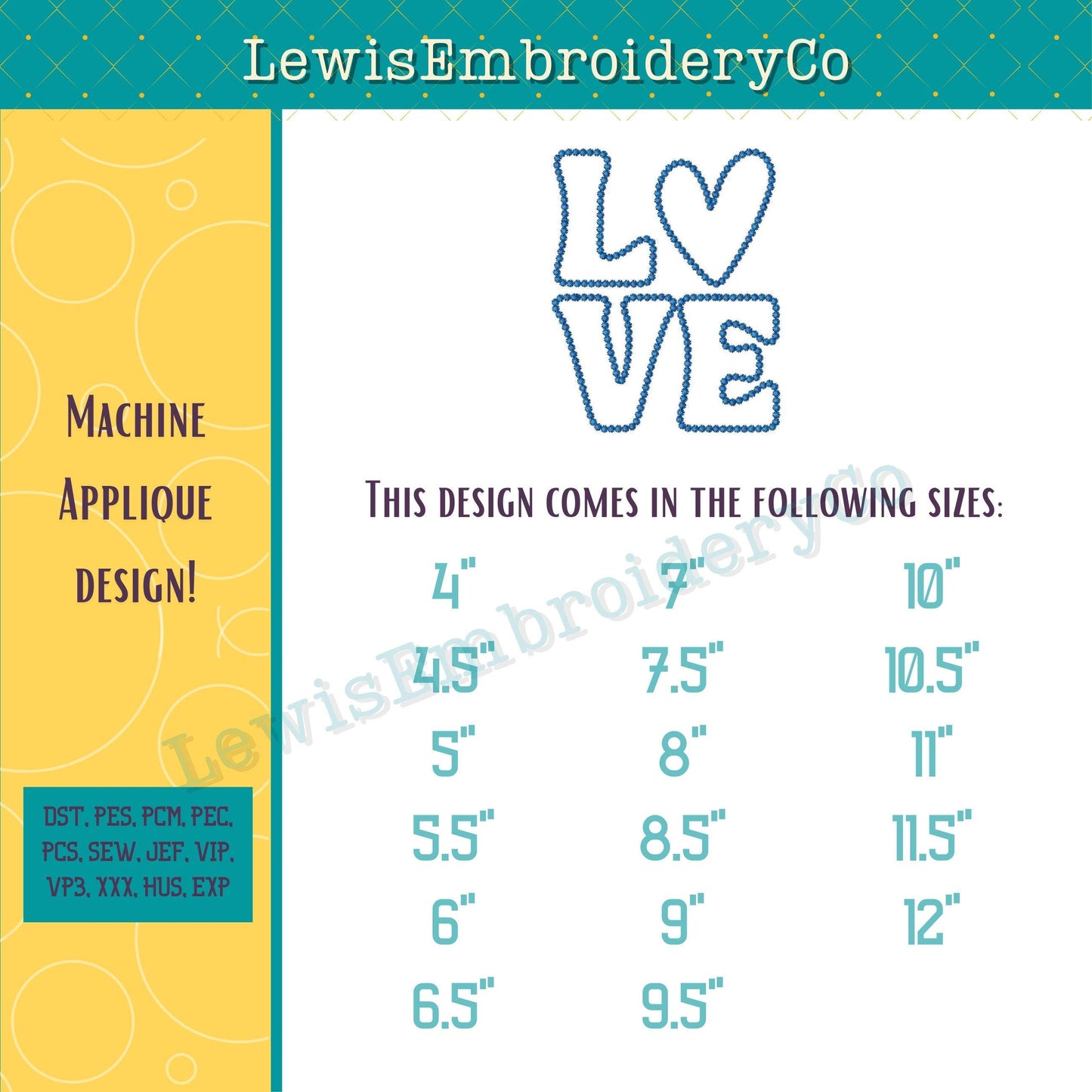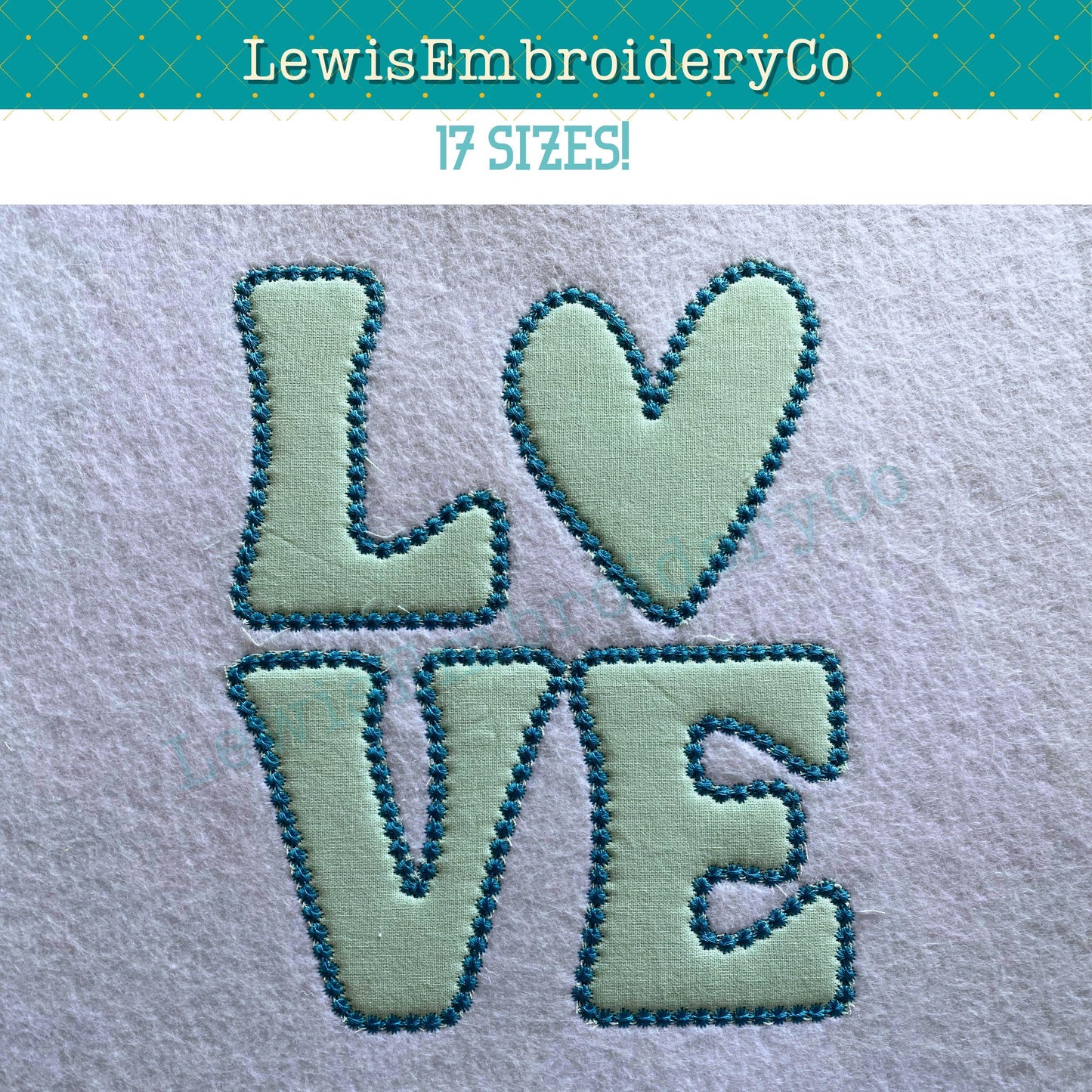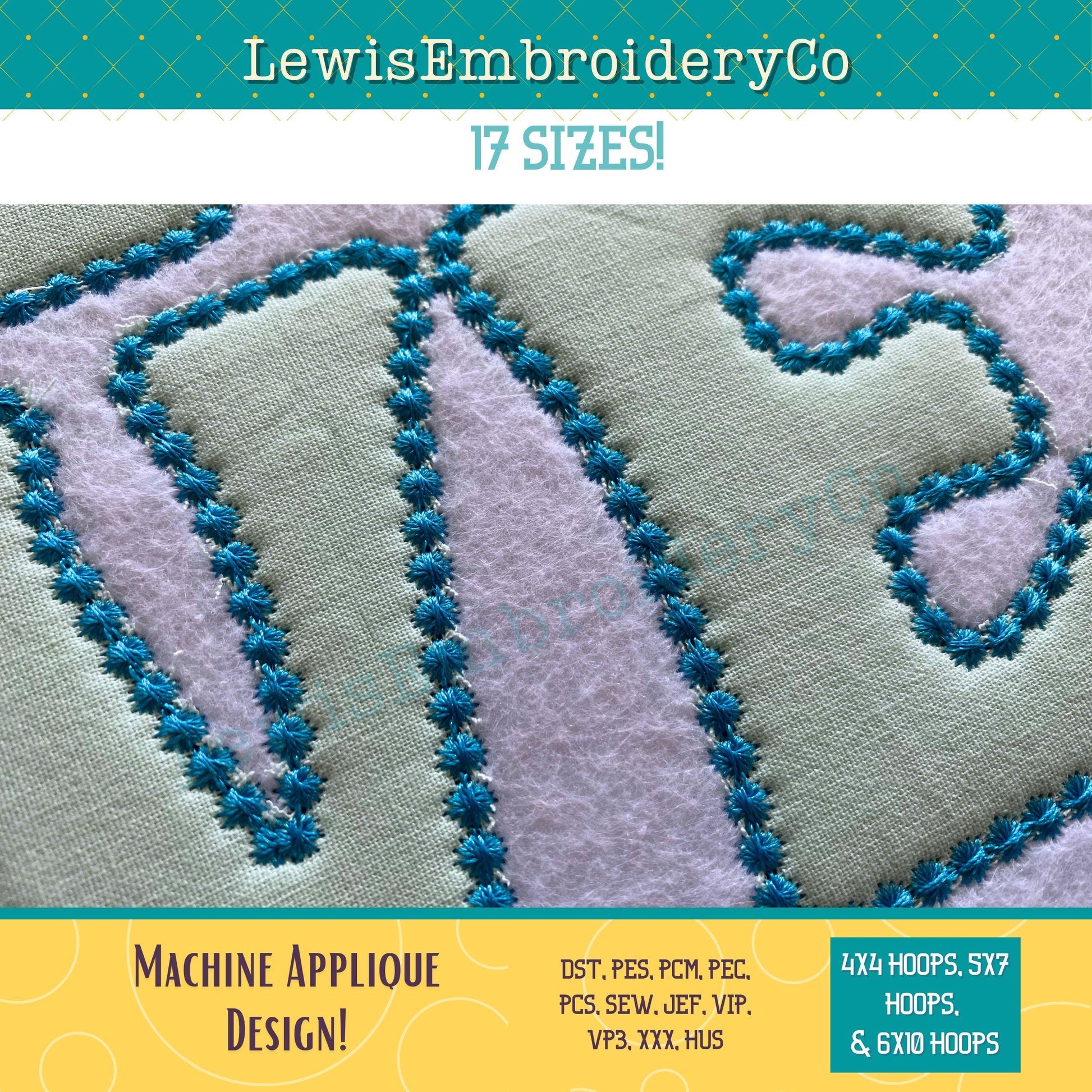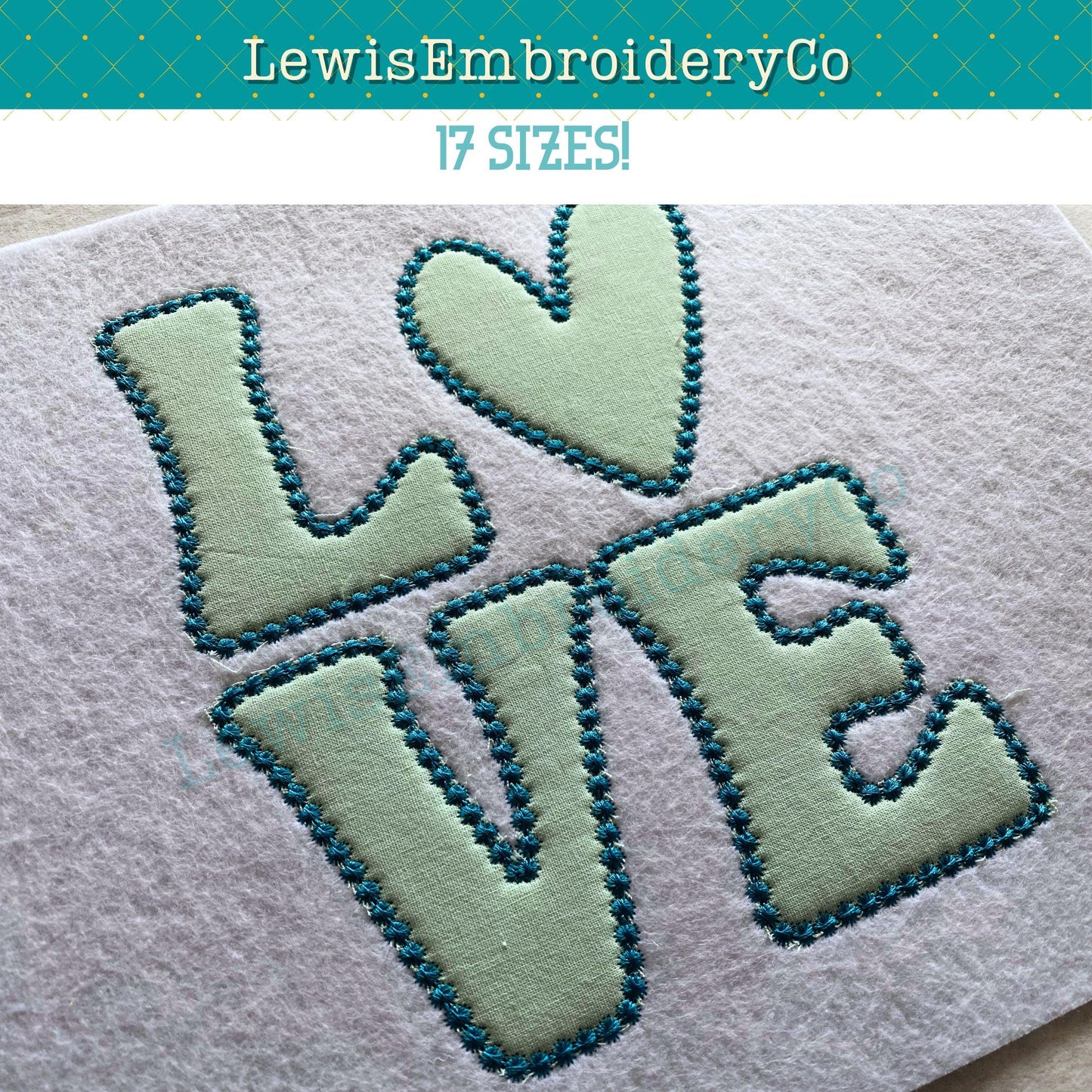
LOVE Candlewick Applique, Machine Embroidery Design - Not Full Font - (Digital Download)
LOVE Candlewick Applique Embroidery Design - Block Love Design - Satin Edge Applique - Love Square - Heart Applique Machine Embroidery
This fun font will add a nice touch to any of your projects!